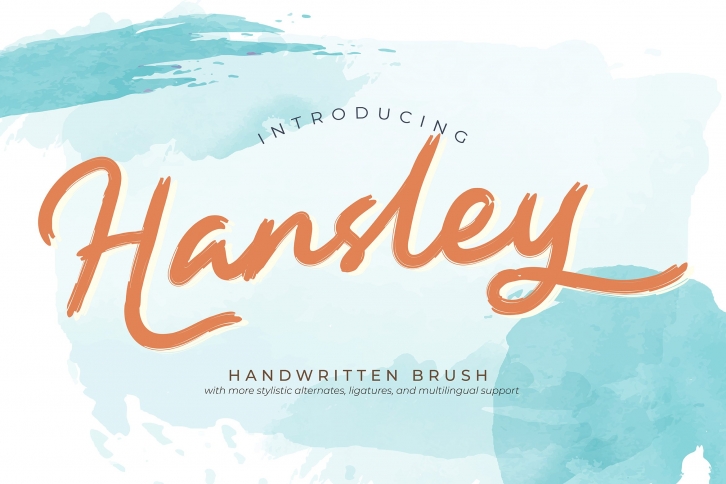
Hansley is a great font that was designed by Vunira. Imagine the amount of combinations you can create using this font! The archive is 20.17 MB and it was released on September 30, 2020. Hansley looks beautiful on wedding invitations, greeting cards, logos, posters, labels, t-shirt designs, logos, business cards and is perfect for use in ink or watercolor works, fashion, magazines, packaging and food menus, children's books and more!